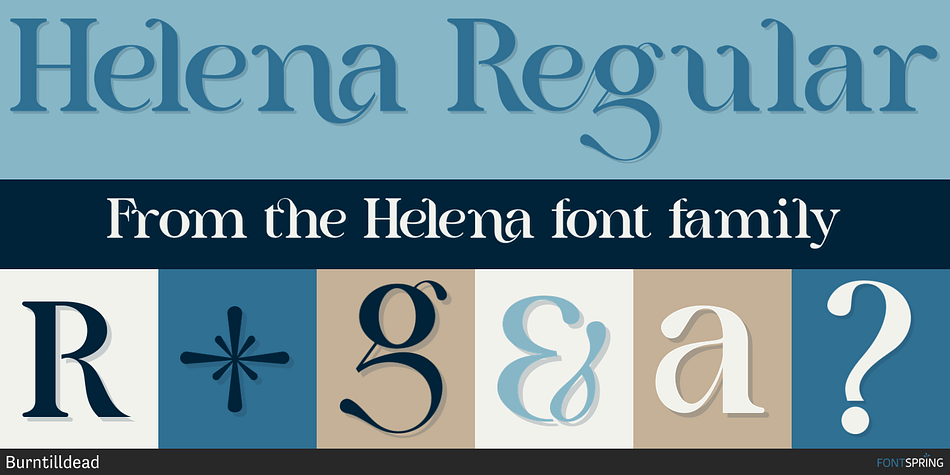
Helena Regular
Helena is a display serif and serif font family. This typeface has eight styles and was published by Burntilldead.
Introducing Helena, a modern ligature serif font with elegant style. It’s an easy way & perfect choice to make your design projects; logo, branding, invitation, social media ads & website have classy looks, just type and add this font….ta daaa! you will be surprise with the result.
Fun to do! this font powered with ligatures that automatically change some of your characters into new form if they type together, magic! It also came with alternate characters to make everything more blended.
Helena Features:
• Multilanguange
• Alternates
• Ligatures